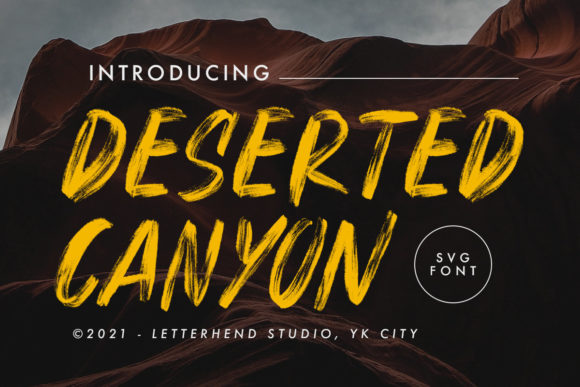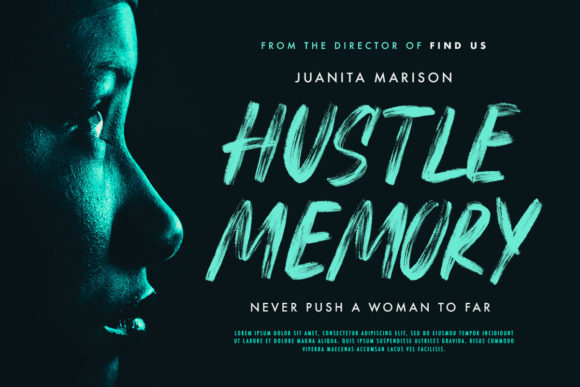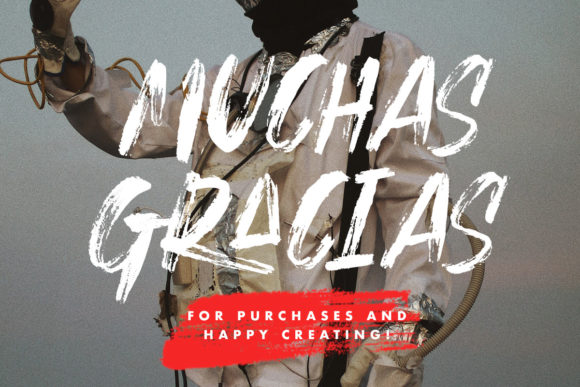
About Deserted Canyon Font
Deserted Canyon is a bold and impactful textured SVG color font that exudes a strong and powerful aesthetic. This font is specifically designed for headlines and formal applications, making it a great choice for various projects such as invitations, labels, logos, magazines, books, greeting cards, packaging, fashion, makeup, stationery, novels, and more.
With Deserted Canyon, you can create eye-catching headlines and designs that command attention. Its bold and textured appearance adds a unique touch to your projects, making them visually striking and memorable. Enjoy exploring the possibilities and let your creativity shine with Deserted Canyon!